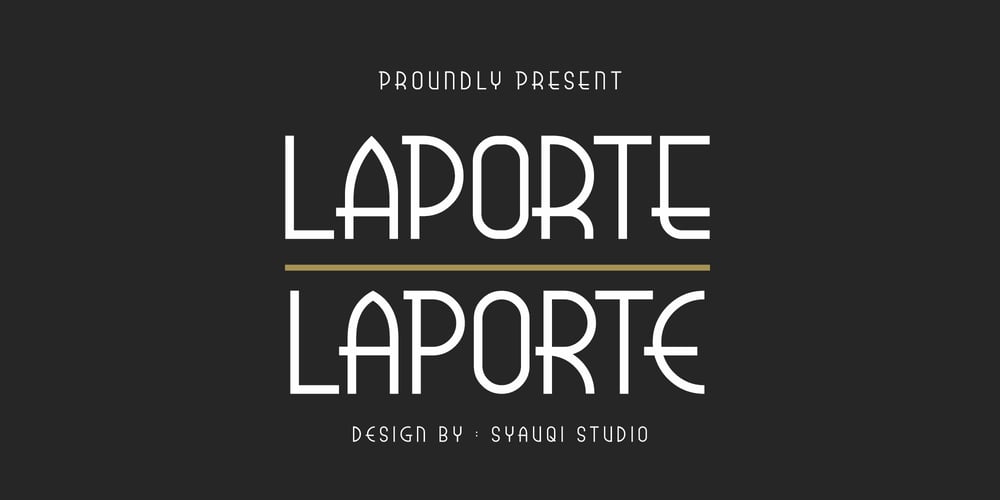
Laporte Font Family was designed by Muhammad Asroful Umam and published by Syauqi Studio. Laporte contains 4 styles and family package options. Laporte is a sans-serif font that has stylish lines and graceful curves that will add period charm to any project they take up.Laporte is very good to be used in any project:Classic or vintage style, japanese style, watermark, social media posts, advertisements, logos & branding, invitation, product designs, label, stationery, wedding designs, product packaging, special events or anything.Features:- All Caps Font- Number & Punctuation- Stylistic alternate- Multilingual SupportTo fully access the font’s features, we recommend using programs that support OpenType features. This will allow you to access glyphs directly on the same panel without copy/pasting each glyph. Additionally, the OpenType panel allows you to turn on standard ligatures, which can automatically change letters for available ligatures.